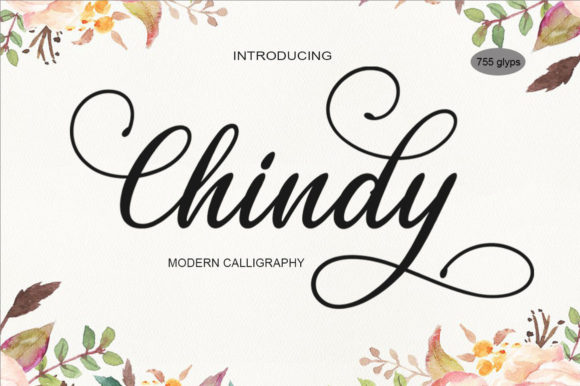
Chindy Font
Chindy Font is perfect for playful children's branding, friendly educational materials, cheerful toy packaging, whimsical book covers, fun social media graphics, joyful event invitations, colorful product design, and delightful advertising campaigns. This charming typeface works wonderfully in both digital applications and print media where playful energy and innocent charm are essential design elements.
What makes Chindy Font so exciting is its perfect capture of childlike wonder and innocent joy through bouncy letterforms that seem to dance with the same spontaneous energy and pure delight of childhood imagination. The font features playful characters with cheerful proportions, friendly curves, and whimsical details that create an immediate atmosphere of happiness and carefree fun. Its joyful personality and youthful inspiration make it ideal for brands seeking to connect with families and children while communicating genuine fun, innocent pleasure, and the boundless optimism of childhood wonder across diverse family-oriented applications.
The Chindy Font family includes multiple weight variations with different playfulness intensities, along with cheerful alternates and whimsical ornamental elements. Each style maintains the typeface's delightful character while offering comprehensive character sets including playful numerals, fun-loving punctuation marks, and special symbols designed to enhance children's communications and family branding efforts across various joyful contexts.
This extraordinary typeface represents the perfect marriage of childhood innocence and professional functionality for family entertainment and educational industries. Whether you're developing children's brand identities, creating educational content materials, or designing family event promotions, Chindy Font Free Download provides the cheerful authenticity and versatility needed to delight young audiences and their families. The font's playful appeal makes it particularly effective for toy companies, children's entertainment, educational platforms, and businesses celebrating the joy and wonder of childhood experiences.
The carefully crafted playful details and optimized cheerful performance in Chindy Font ensure both innocent charm and clear communication across all family applications. Its delightful presence makes it perfect for children's branding, family marketing materials, and joyful communications where its full whimsical character can create lasting smiles and connections with audiences seeking fun, happiness, and the pure joy of childhood innocence.